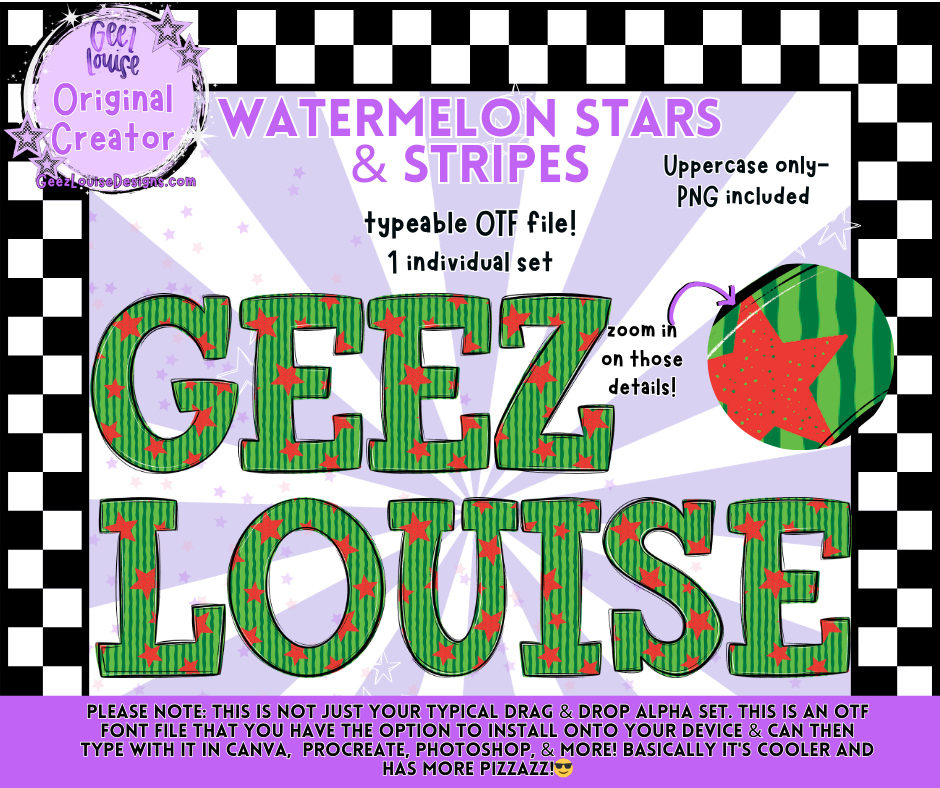
WATERMELON STARS & STRIPES — Typeable OTF Alpha Font + PNGs
Bring the sweetest summer energy to your designs with Watermelon Stars & Stripes, a bold, juicy, patriotic‑meets‑playful alpha font. This typeable OTF file lets you create crisp, high‑impact lettering instantly — no dragging and dropping individual PNGs unless you want to. Perfect for tees, stickers, planners, sublimation, classroom décor, and all your warm‑weather projects.
Watermelon‑themed textures, stripes, and stars